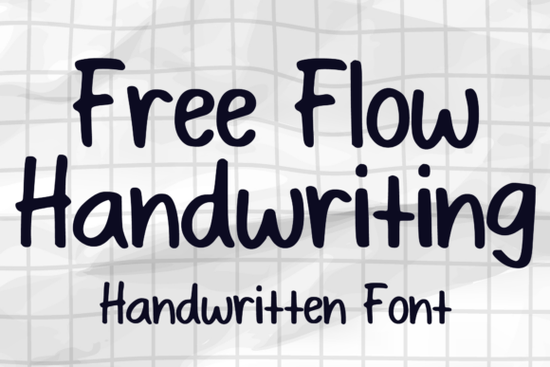
If you're looking for a handwriting font that feels natural and relaxed without being messy, Free Flow Handwriting is worth a close look. It's a marker-style script font with a casual, flowing rhythm that works surprisingly well across a wide range of projects from sticker sheets and greeting cards to logos and social media graphics.
What makes this font stand out among other script fonts is how effortlessly readable it stays, even with all its hand-drawn charm. Let's dig into what you can actually do with it.
What kinds of projects work well with Free Flow Handwriting?
This font was designed with versatility in mind. Here are some real ways designers and creators are using it:
- Sticker designs The playful marker style adds personality to planner stickers, motivational quote stickers, and product labels.
- Logo design It gives small brands a friendly, approachable feel without looking amateur.
- Magazine and book covers The flowing script draws the eye and pairs well with clean sans-serif body text.
- Comic lettering and cartoon illustrations Its casual energy fits right in with illustrated projects.
- Greeting cards and invitations Handwritten fonts like this one make cards feel personal and warm.
- Print-on-demand products Mugs, t-shirts, tote bags anything where a handwritten quote needs to look polished but not stiff.
How does Free Flow Handwriting compare to other script fonts?
There are hundreds of handwriting fonts available, so choosing the right one depends on your project's tone. Free Flow Handwriting sits in a sweet spot: it's playful without being childish, and elegant without being formal.
For comparison, if you need something more refined for wedding invitations or luxury branding, the Beauty font offers a more delicate, flowing script. On the other end, Princess Party font leans into a fun, whimsical style that's great for kids' party supplies and themed designs.
For projects that need a bold signature look, the Signature Handwriting font delivers a more confident, autograph-style feel. And if you're working on something industry-specific like automotive branding, the CarDeals font is built for that exact purpose.
Free Flow Handwriting fits best when you want something casual, friendly, and versatile the kind of font you can use across an entire brand without it feeling repetitive.
Is Free Flow Handwriting a good choice for print-on-demand?
Short answer: yes. One of the biggest challenges in print-on-demand design is finding fonts that look good at different sizes and on different products. A font that reads well on a business card might lose its impact on a poster, and vice versa.
Free Flow Handwriting holds up well across sizes. Its letterforms are distinct enough to stay readable when scaled down for small product labels, and its natural flow looks attractive when used large on wall art or apparel.
It also pairs nicely with clean geometric sans-serifs, which is a common layout choice for POD designs. Try using it for headline text or a featured quote, and pair it with a simple sans-serif for supporting details.
Tips for getting the most out of this font
- Use it for headlines and short text blocks. Like most script fonts, it works best in larger sizes and shorter passages. Avoid using it for paragraphs of body text.
- Pair it with a simple sans-serif. Fonts like Montserrat, Poppins, or Open Sans create a clean contrast that lets the script shine.
- Add letter spacing if needed. A small amount of tracking can improve readability at certain sizes, especially for product mockups.
- Test it on your actual product. What looks great on screen might need adjustments in print. Always do a test run before listing products for sale.
- Explore alternatives for variety. Having a few script font options in your toolkit lets you match the right style to each project.
Should you download Free Flow Handwriting?
If your design work involves anything from social media graphics to product labels, and you want a font that looks hand-lettered without being hard to read, this is a solid pick. It's especially useful if you create sticker designs, run a print-on-demand shop, or design for small brands that want a personal, approachable look.
It won't replace every script font in your collection, but it fills a specific need casual, flowing, marker-style handwriting that comes up more often than you'd think.